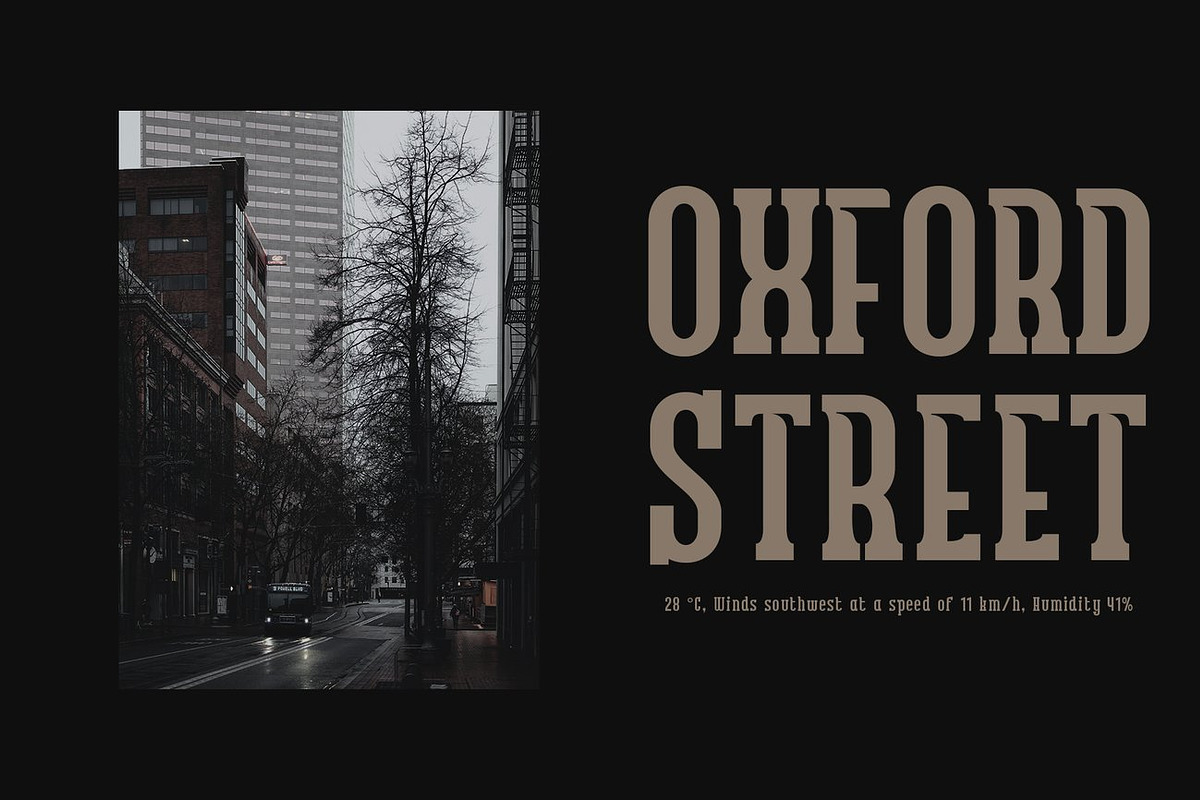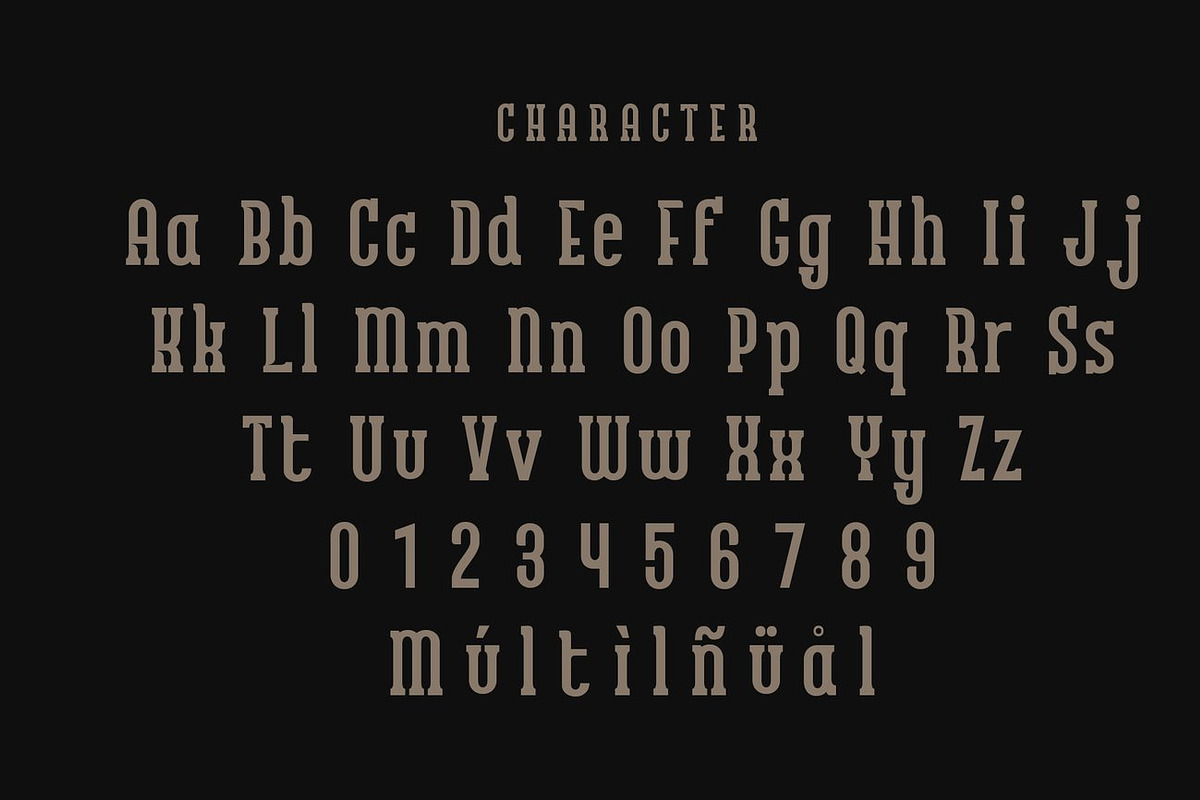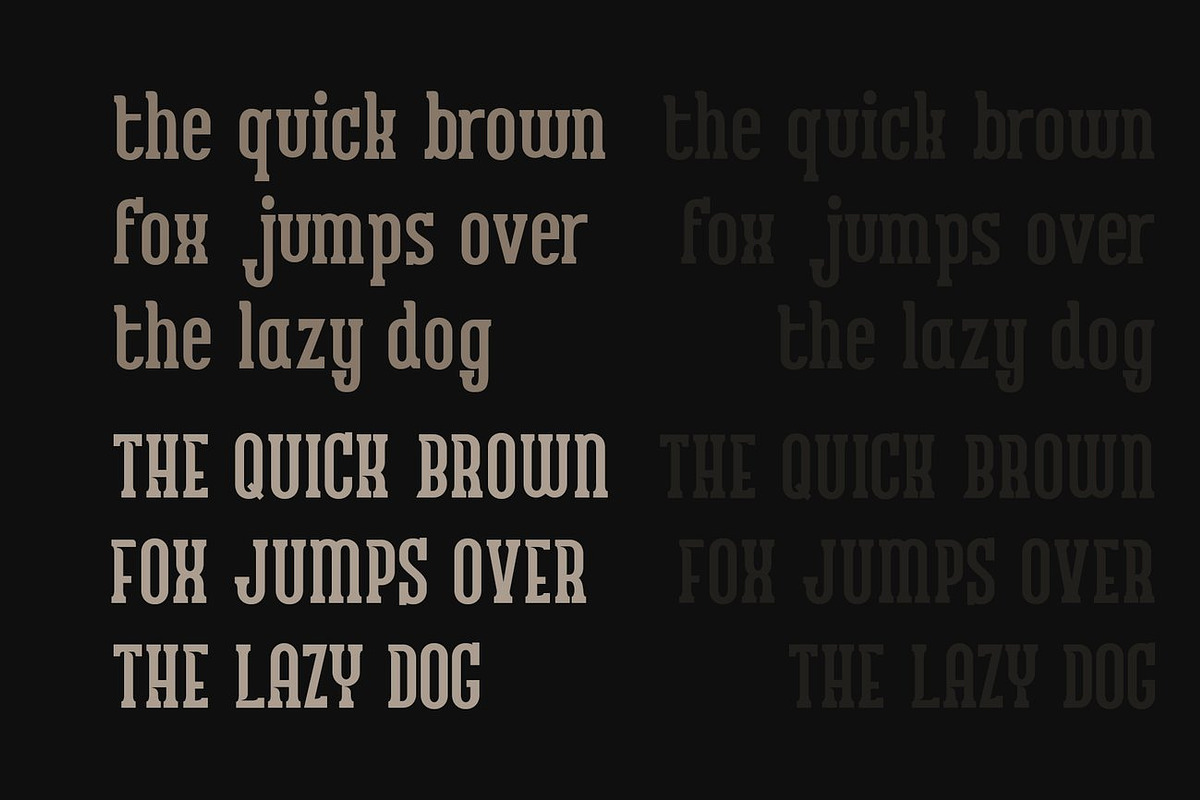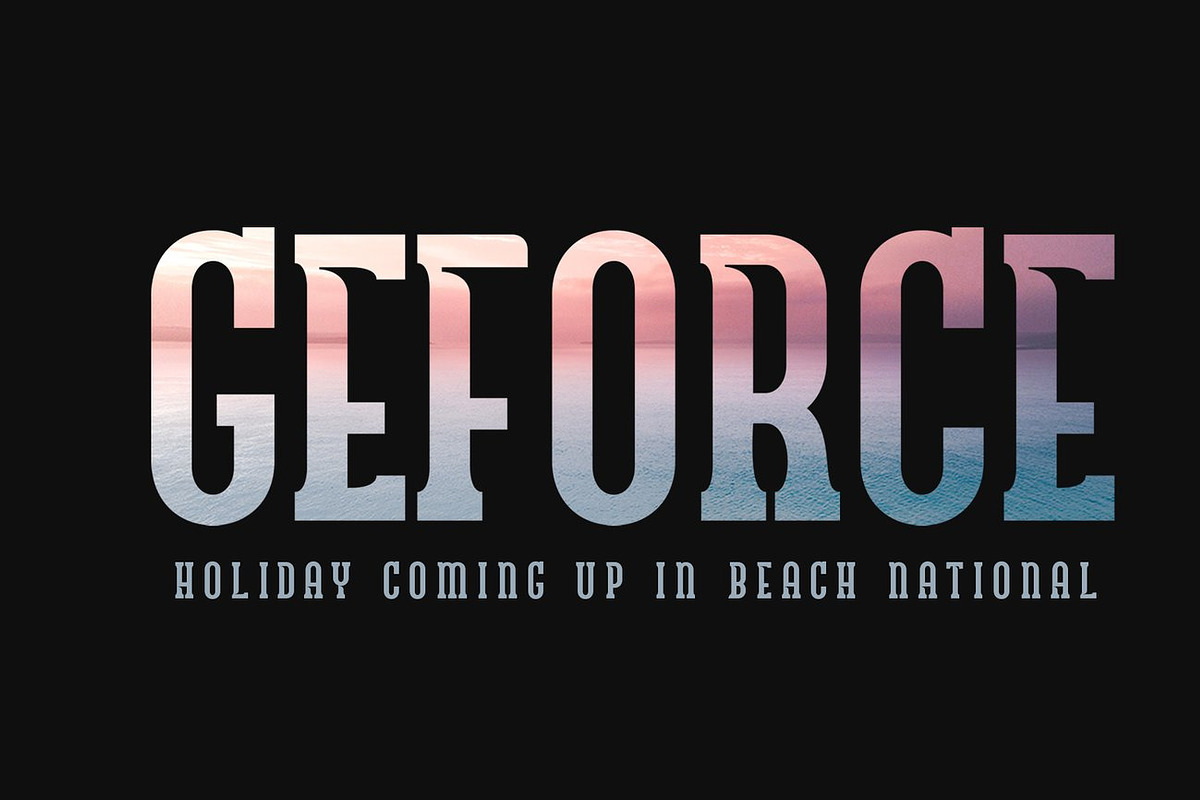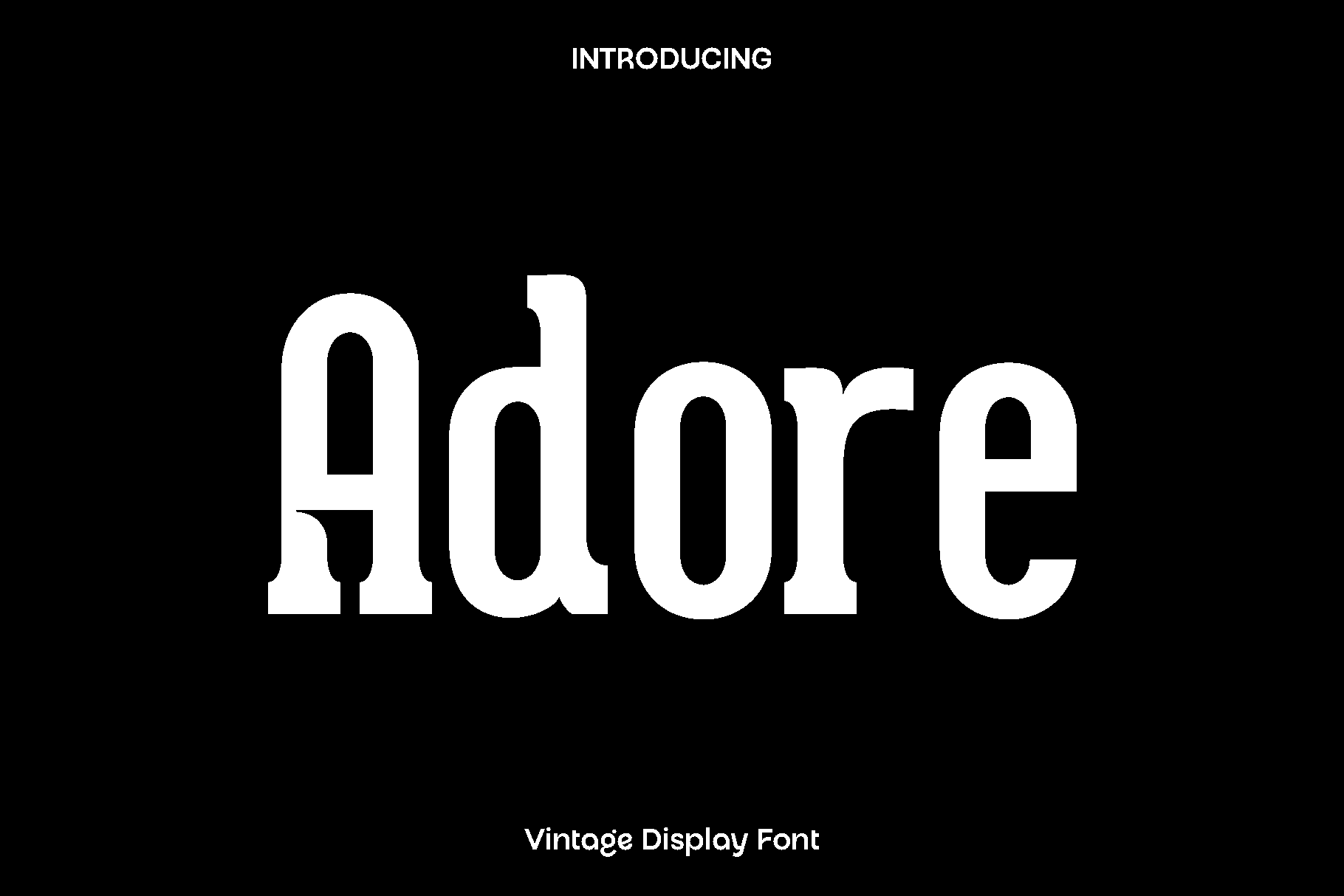
Adore Modern Serif Font
Adore is a vintage style font crafted with careful precision to capture the charm and warmth of classic typography. Inspired by timeless lettering found in heritage branding and retro design, Adore delivers a nostalgic yet refined personality that feels authentic and expressive. Every character is designed with balanced proportions and thoughtful details, giving the font a handcrafted feel that adds soul and character to your designs.
Adore shines in projects that need a strong visual identity with a vintage touch. It is perfect for branding design, logo creation, greeting cards, packaging, posters, headlines, and editorial layouts. Whether you are working on print or digital media, Adore brings a sense of familiarity and elegance that instantly connects with viewers and enhances the overall design story.
This font feels warm, classic, and confident, making it ideal for creative projects that aim to evoke emotion and tradition. Its versatility allows it to adapt across various design styles while maintaining its distinctive vintage appeal. Adore helps transform ordinary layouts into memorable visuals with personality and timeless style.
Adore Vintage Style Font Features:
• Carefully crafted vintage display characters
• Unique punctuation, numbers, and symbols
• Uppercase and lowercase
• OpenType features